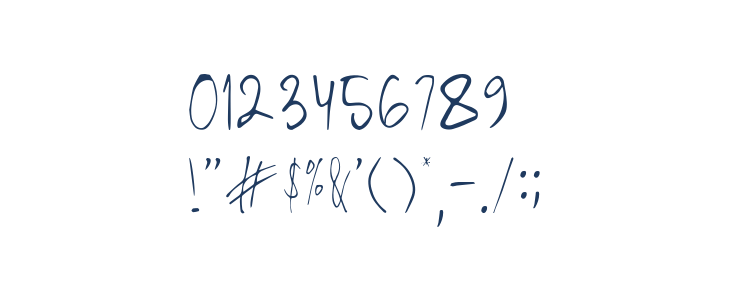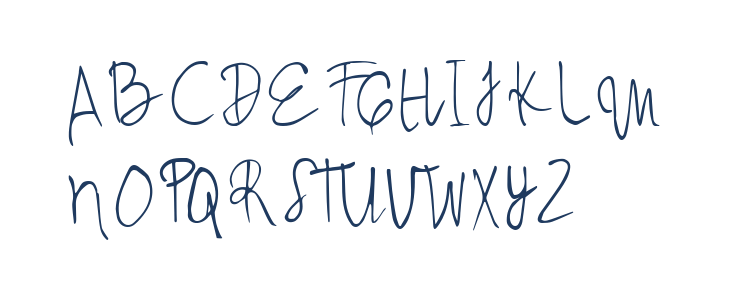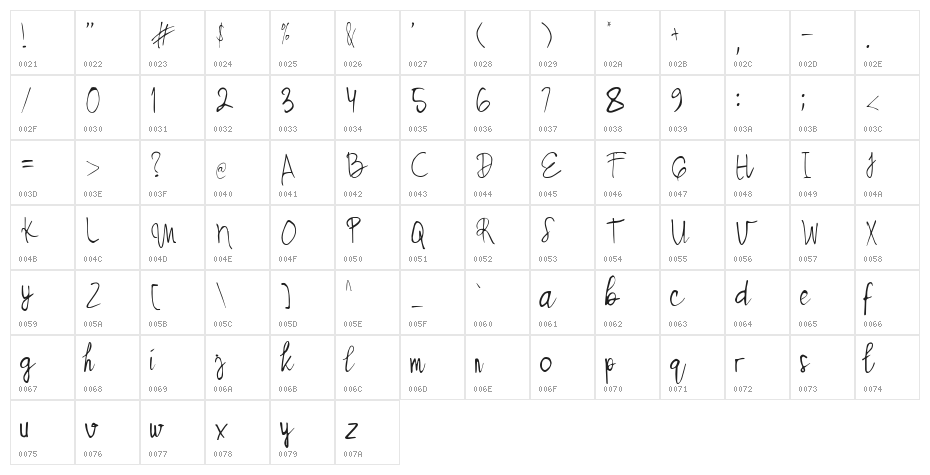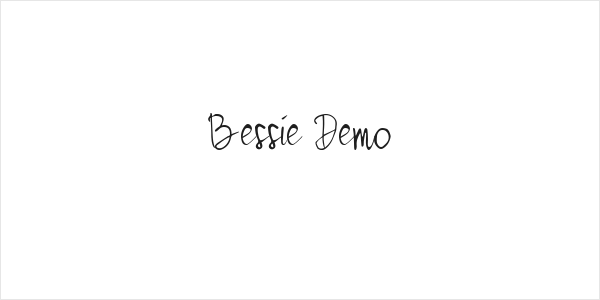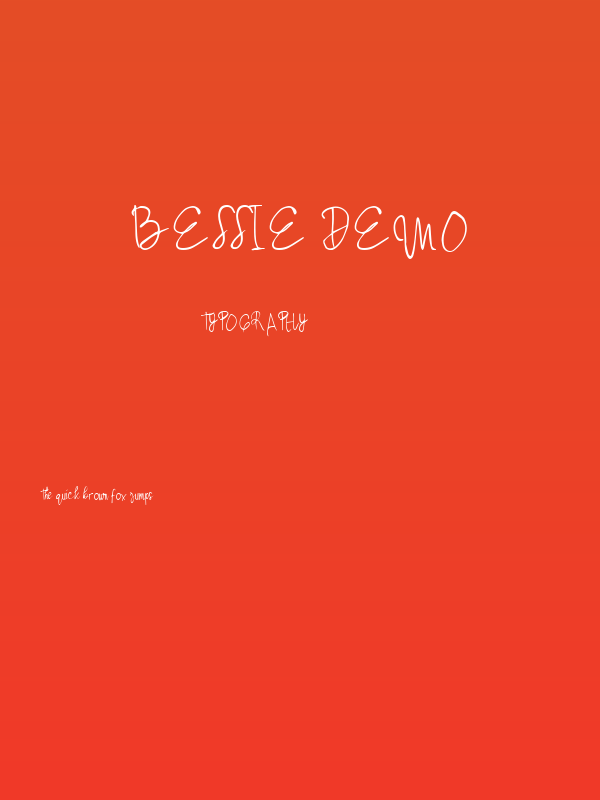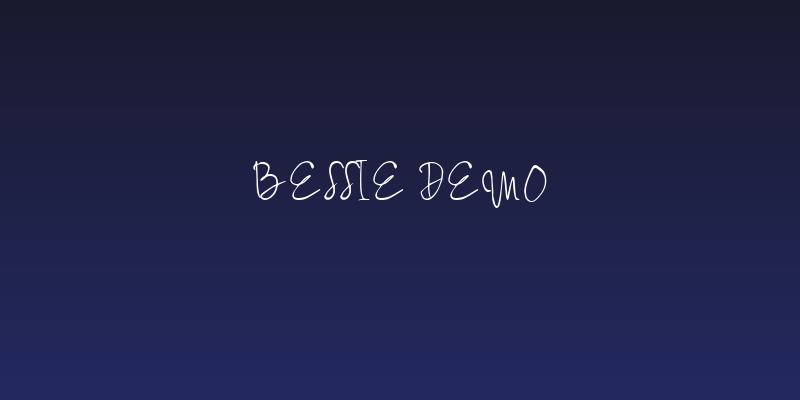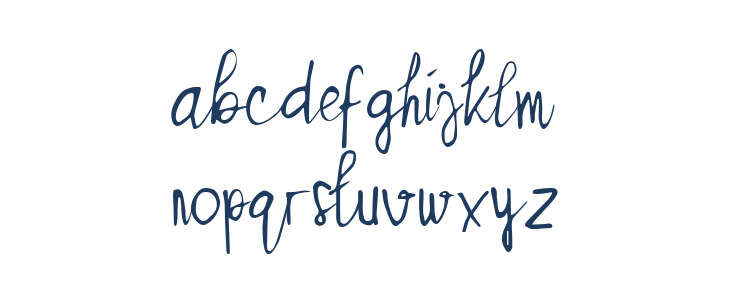
Bessie Demo Font
Bessie Demo Description
A playful, loose handwritten font with tall, narrow letterforms and irregular, organic strokes. The characters have a casual, whimsical feel, with varying baseline alignment and inconsistent stroke thickness, giving it a lively and spontaneous appearance.
| Overall Style | Playful, Casual, Whimsical |
| Use Case | Logos, Headlines, Invitations, Personal notes |
| Proposed Projects | Greeting cards, children's books, informal invitations, creative branding, personal notes. |